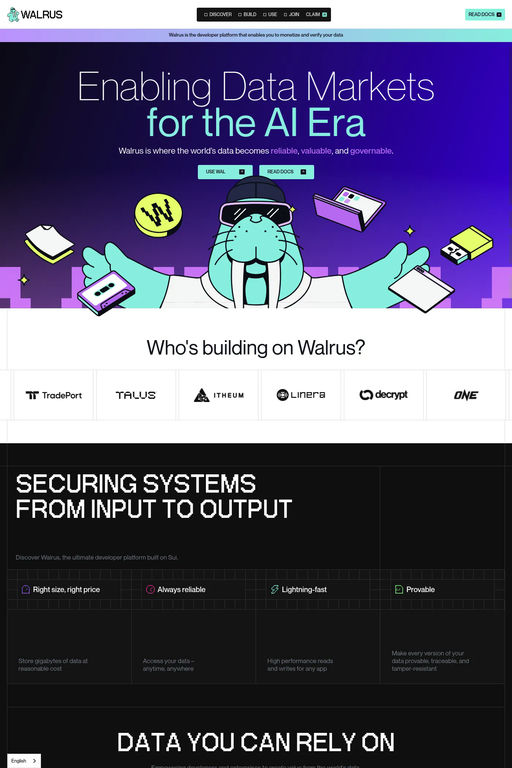
NeueBit is a display typeface from Pangram.
Designed to be your next go to pixel font, these bitmap fonts were inspired by the classic Grotesks and Serifs of our era. With more than 600 characters, symbols and icons these were crafted for maximum legibility, versatility and pairing capacity.